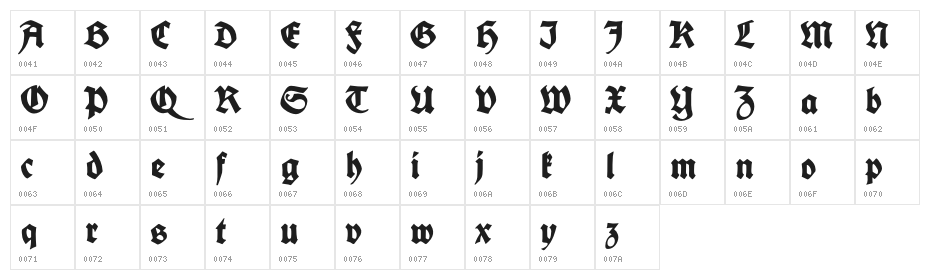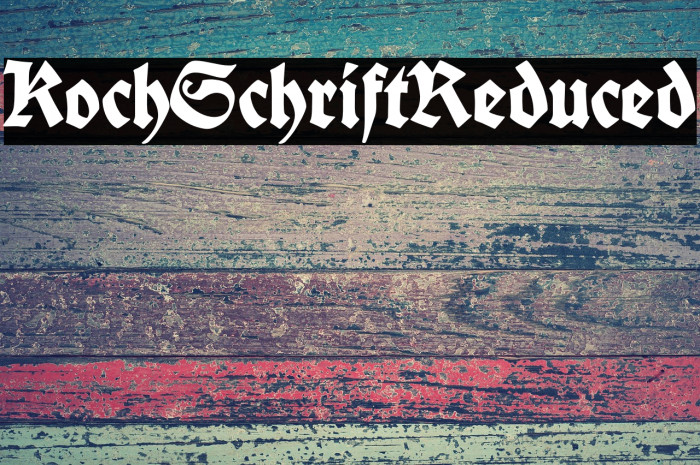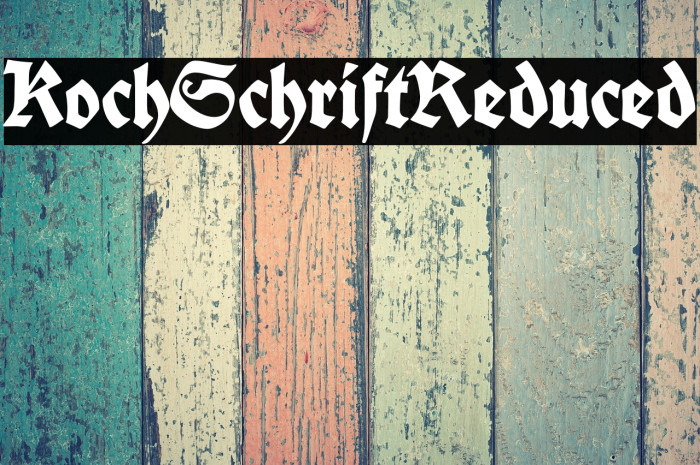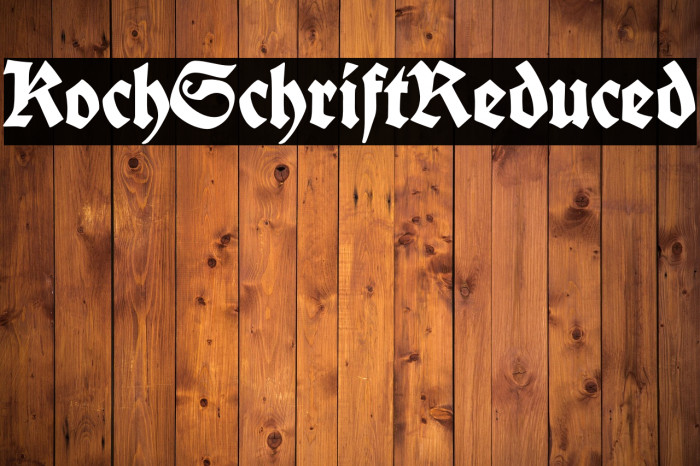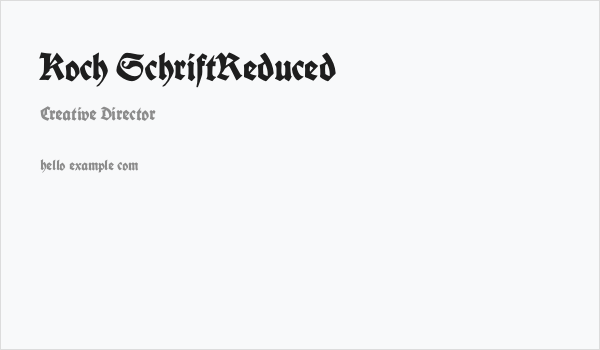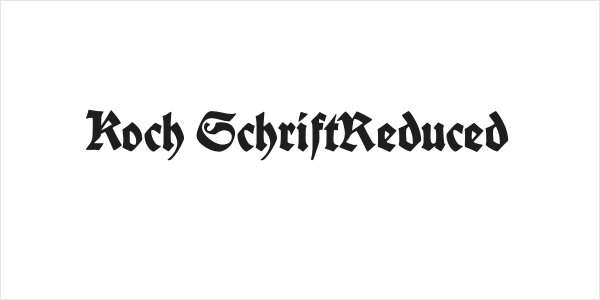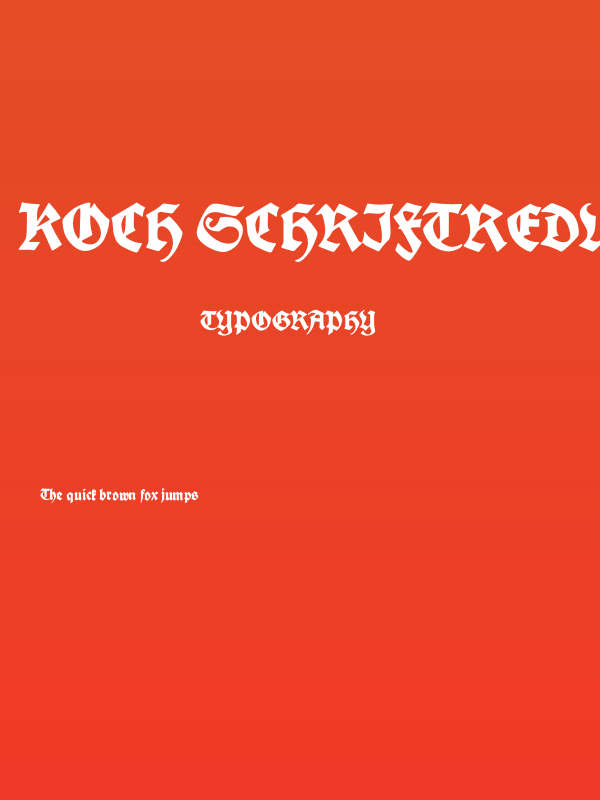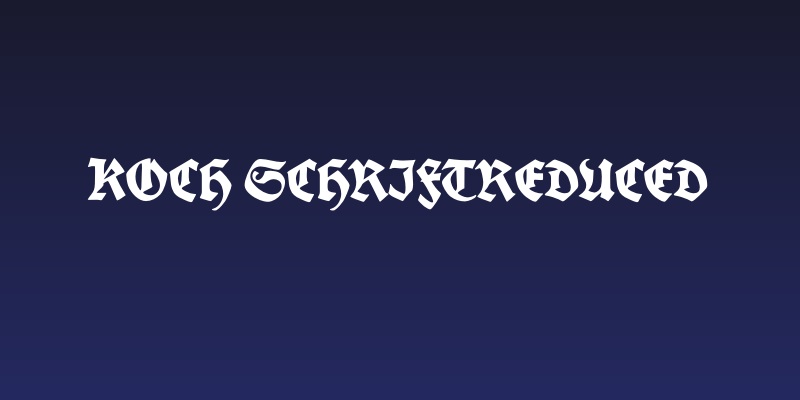
Koch-SchriftReduced Font
Koch-SchriftReduced Description
This font exhibits a traditional blackletter style, characterized by its sharp, angular lines and intricate detailing. The uppercase letters are bold and commanding, with a strong presence that is both historic and authoritative. The lowercase letters maintain the same intricate design, offering a cohesive look throughout. The font's overall appearance is reminiscent of medieval manuscripts, with a gothic flair that adds a sense of drama and elegance. The characters are tightly spaced, enhancing the dense, compact feel typical of blackletter fonts. This style is often associated with historical and formal contexts, providing a sense of gravitas and tradition.
| Proposed Projects | Ideal for projects requiring a historical or gothic aesthetic, such as book covers, posters, or branding for vintage-themed products. |